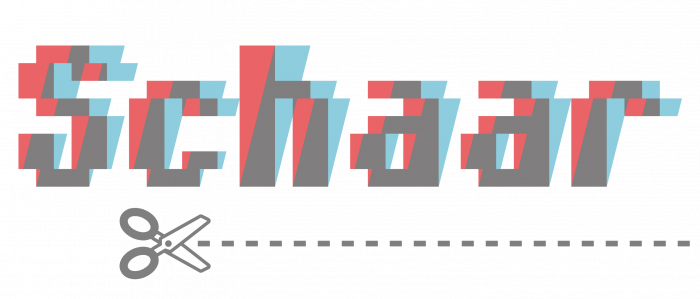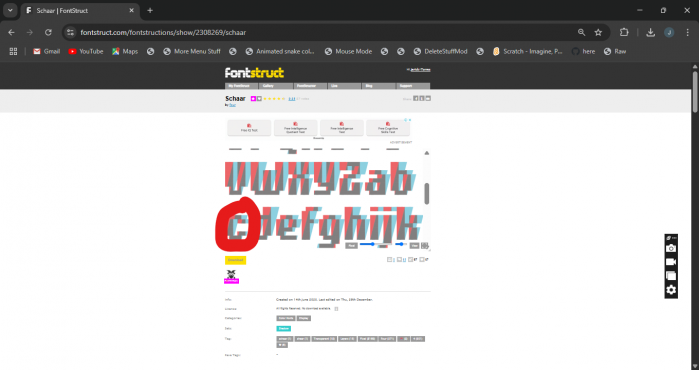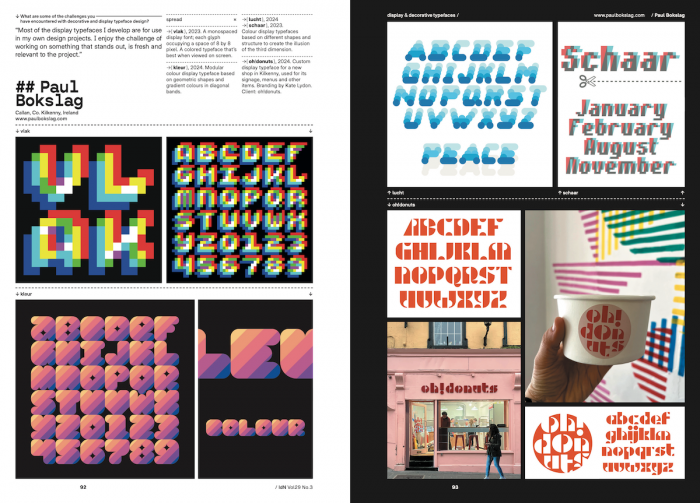
The font that is both upright and italic at the same time…
Also, you might want to check the top corner of O and Q, they appear to be slanting when on the other letters, they are not.
I also noticed another one on the 0.
Quite the well-executed and creative concept~
Another great dive into the pixel font realm. This time with a triade color scheme to create an anaglyph 3D effect.
I must say that it is kind of wearying on the eyes, especially when staring at this non-filtered chromatic opposites for too long. Since there is no polarization filter to make it stereoscopic the brain can not correct the defocus effect that is generated from those color layer off-set.
Do you have any additional practical reason for implementing this technique or was it purely aesthetically?
so cool!
Great effect!
I am verry Impressed!
very strong work, simple idea great result , bravo
cool :3
spotted a mistake in your lowercase C...
I am delighted that some of my colour fonts are included in IdN v29n3: Display + Decorative Typefaces & Lettering Too, alongside typefaces by 34 contributors from around the world.
I don't know if this is meant to be an error, but I found some blue sticking-out bits on the characters 'Q', 'g', 'j', 'p', 'q' and ','.